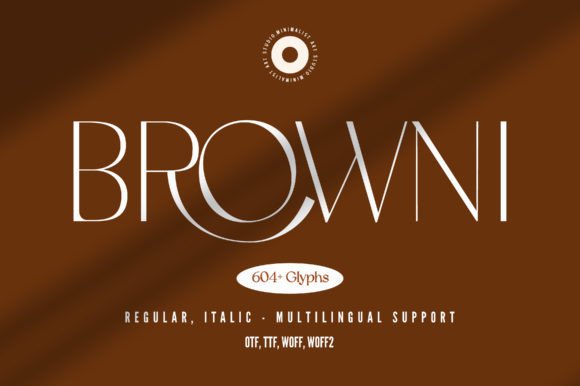
Introducing Browni: The Elegant Sans-Serif Font for Modern Designers
What Makes Browni Special?
Browni is more than just a font – it’s a design statement. With its clean and modern aesthetic, it’s perfect for projects that demand a sleek and refined look. The subtle curves and balanced proportions make it both bold and refined, making it an ideal choice for branding, advertising, editorial design, and much more.
An Honest Review of Browni
• ✅ Elegant and sophisticated design
• ✅ Clean and minimalist style
• ✅ Perfect for branding, advertising, and editorial design
• ✅ Works well with both digital and print media
• ⚠️ Limited number of glyphs and OpenType features compared to other fonts
• ⚠️ May not work well with very small font sizes or low-resolution images
The Backstory of Browni
Browni was designed by a team of typographers who wanted to create a font that would embody the perfect balance of elegance and minimalism. Inspired by classic sans-serif fonts, they experimented with different letterforms and proportions to create a unique and sophisticated design.
Q: What is the best use case for Browni?
A: Browni is perfect for branding, advertising, editorial design, and any project that demands a sleek and refined look.
Q: Is Browni a versatile font?
A: Yes, Browni is a versatile font that works well with both digital and print media, and can be used for a variety of design projects.